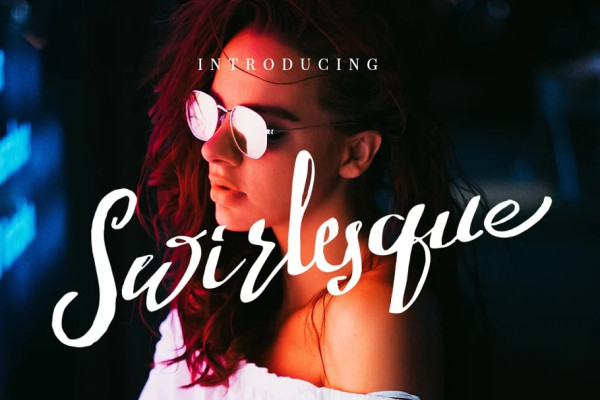
Swirlesque Script Font
Swirlesque Script Font, inspired by handwritten letters. I made it with a brush pen and then I trace with minor improvements to handle and some alternate characters to strengthen the natural impression. wild hand and imperfect flow give the natural looks. Combinations until 400 more glyphs.